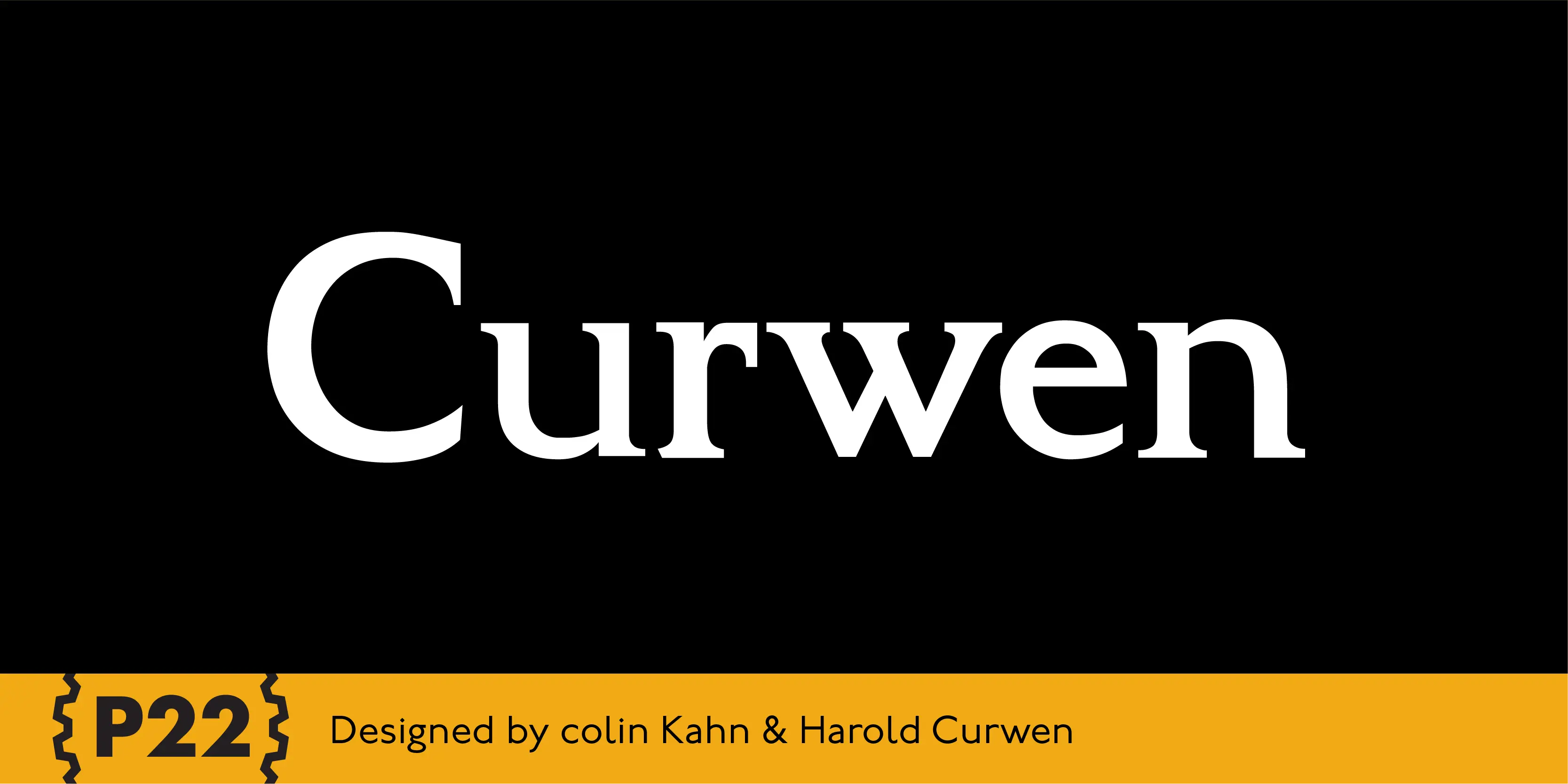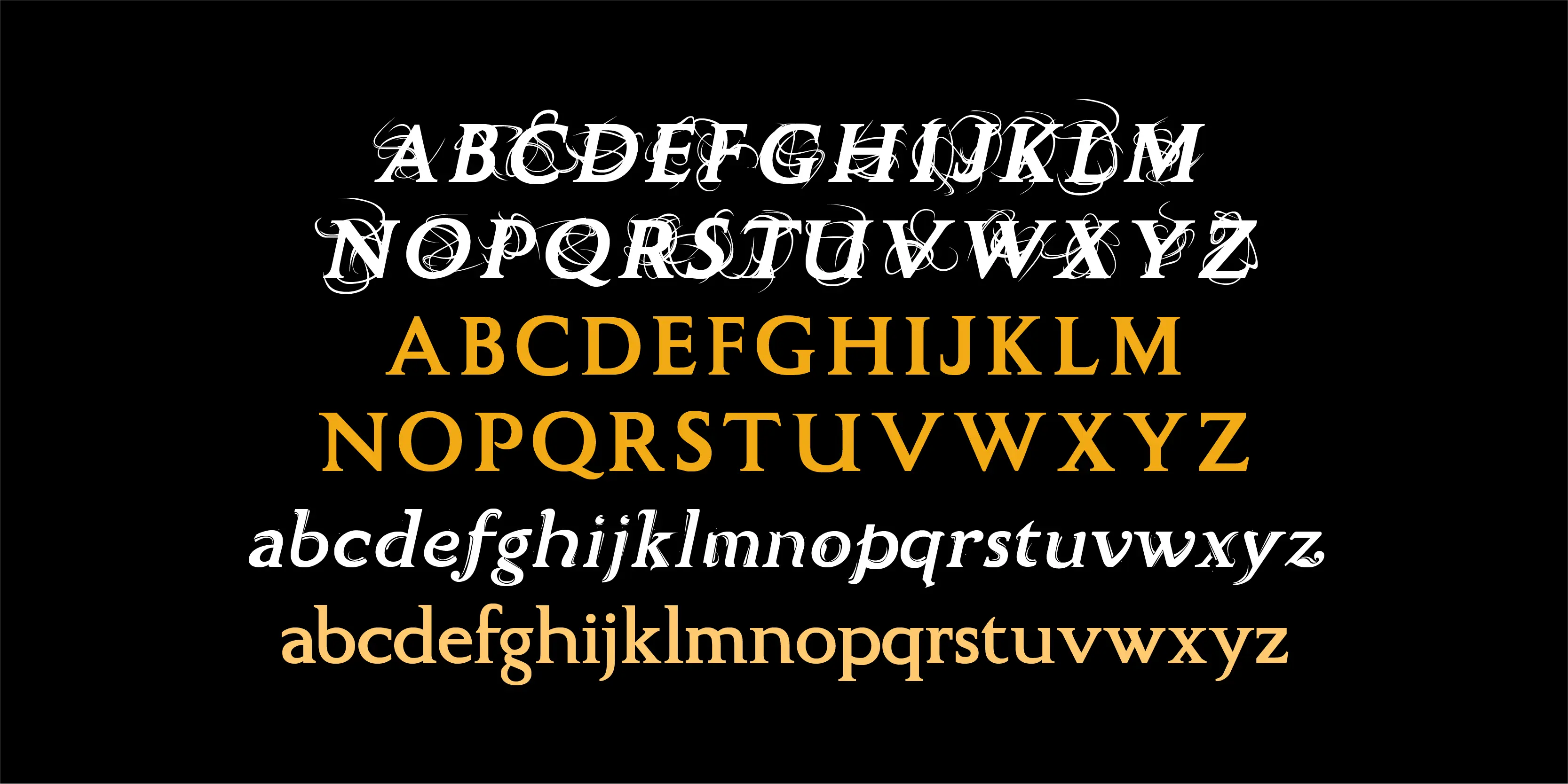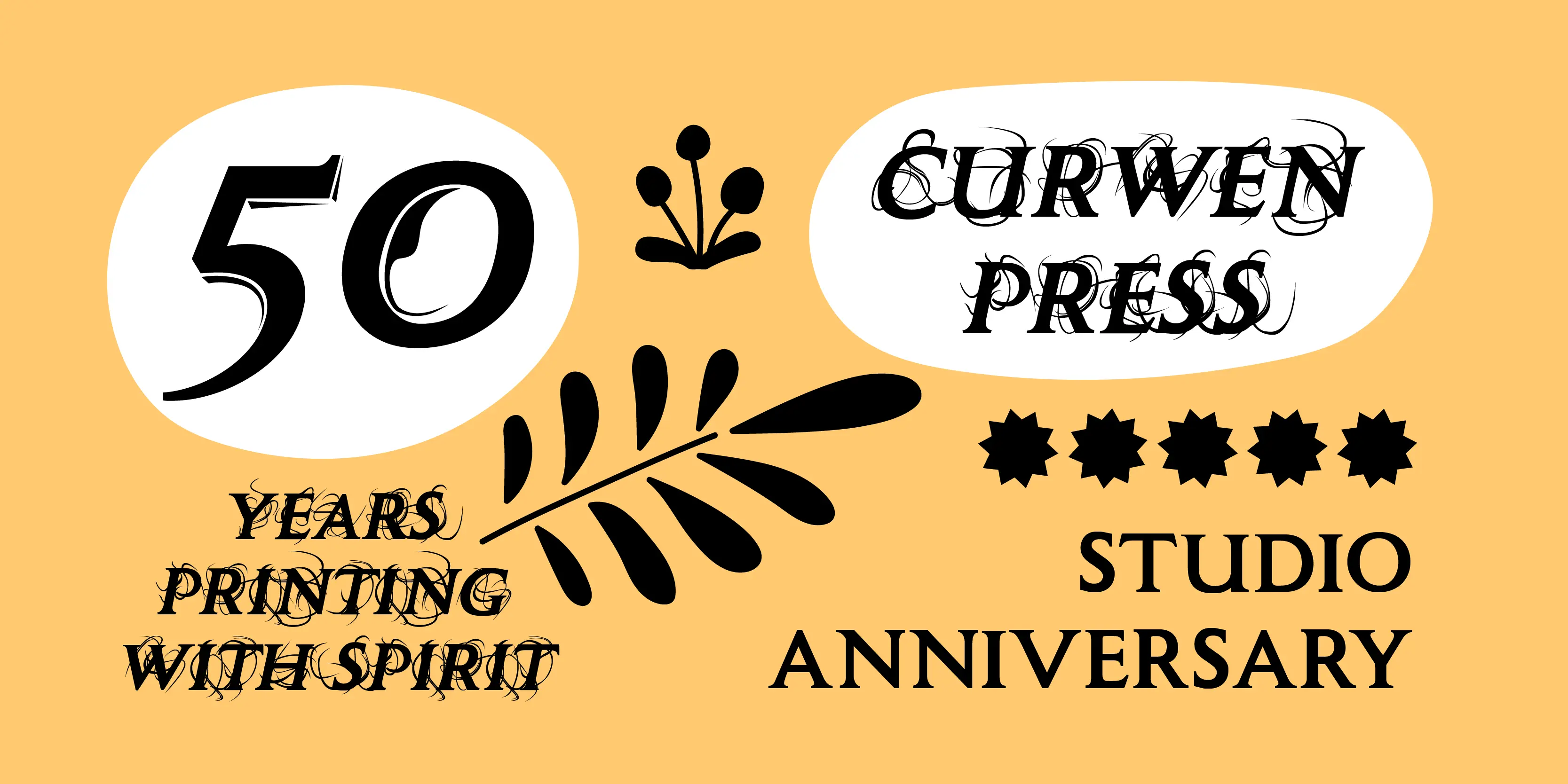
Curwen Font Family
• Curwen Maxima
• Curwen Poster
Curwen
P22 Curwen was originally designed by an unknown designer. This version was created by Colin Kahn. P22 Curwen Poster is a digitized version of a rare wood type used by the Curwen Press in England in the early 20th Century for poster work. The font was known to have been cut in 6 sizes — from 3-line (3/4 inch) to 16-line (3 inch) in height. The font was based from impressions made of the 6-line type. P22 Curwen Maxima is a hyper-stylized re-interpretation of Curwen Poster by Colin Kahn. As a post-modern poster type, it evokes an organic nature within a novel maximalist framework. It is reminiscent of early phototype display faces with an illogical three-dimensionality which serves to give the font continuity. The capitals are buried beneath stylistic wood shavings complementing the sculpture like quality of the lowercase. Perfect for (almost) any project.